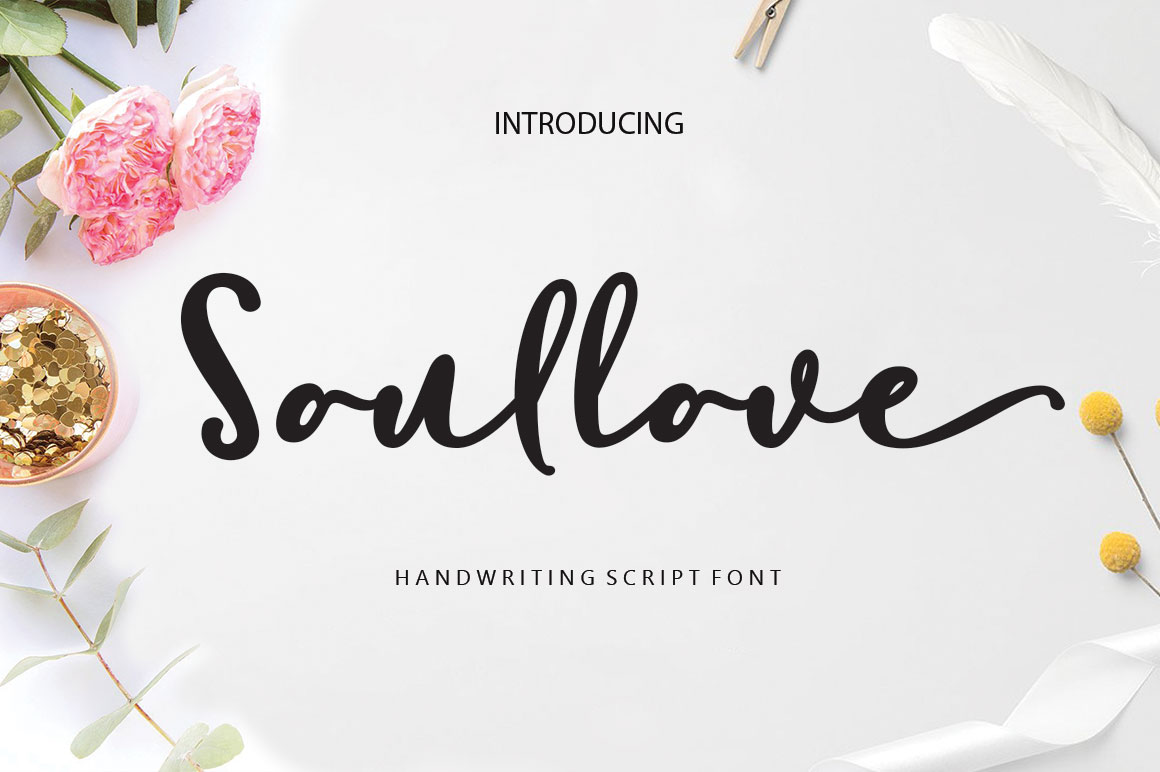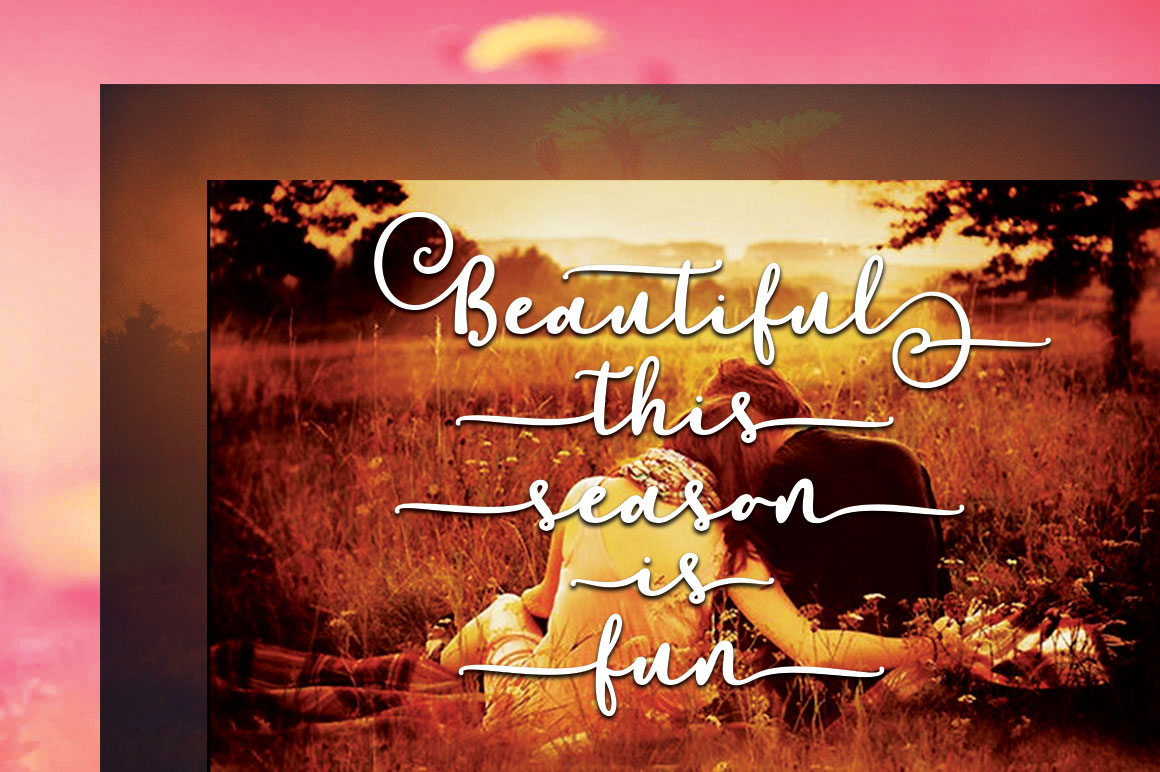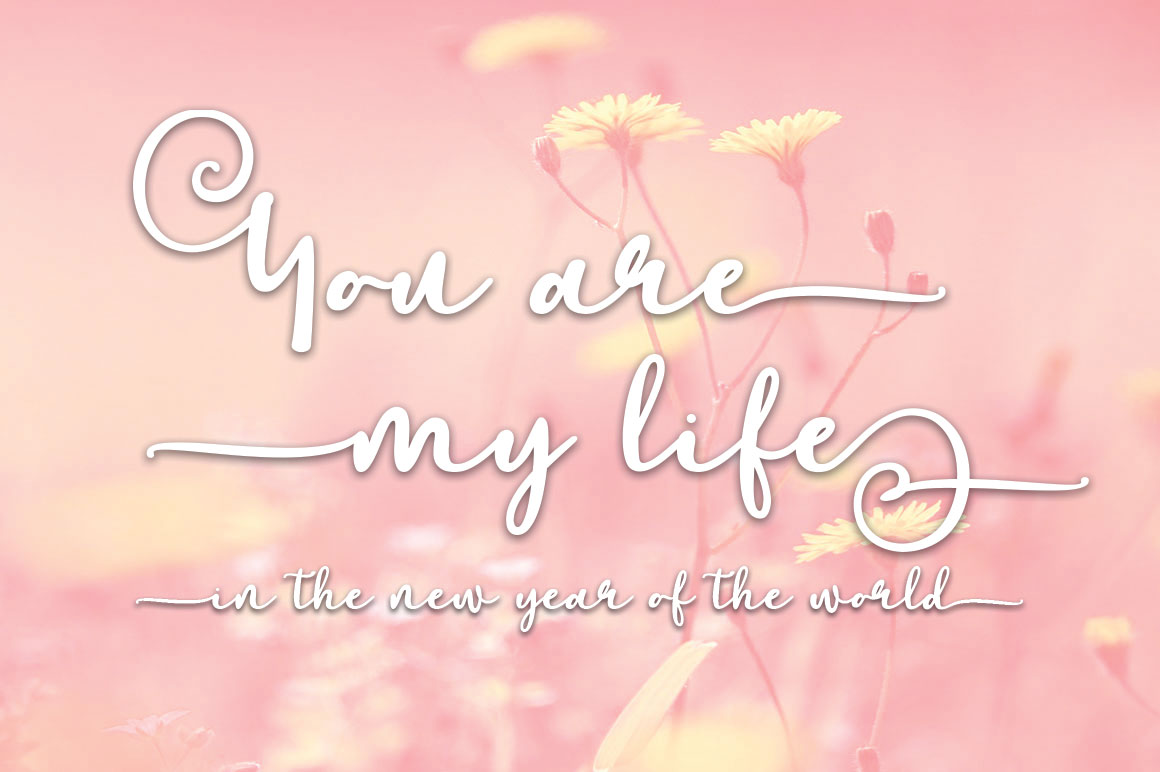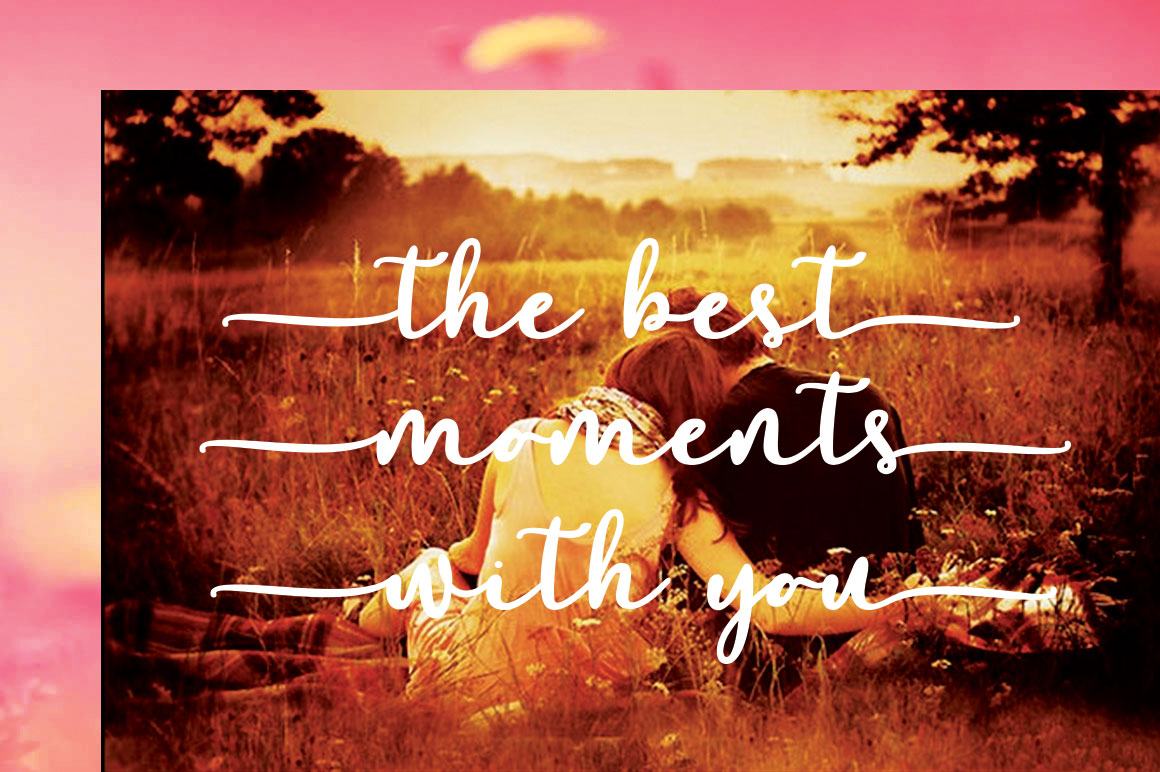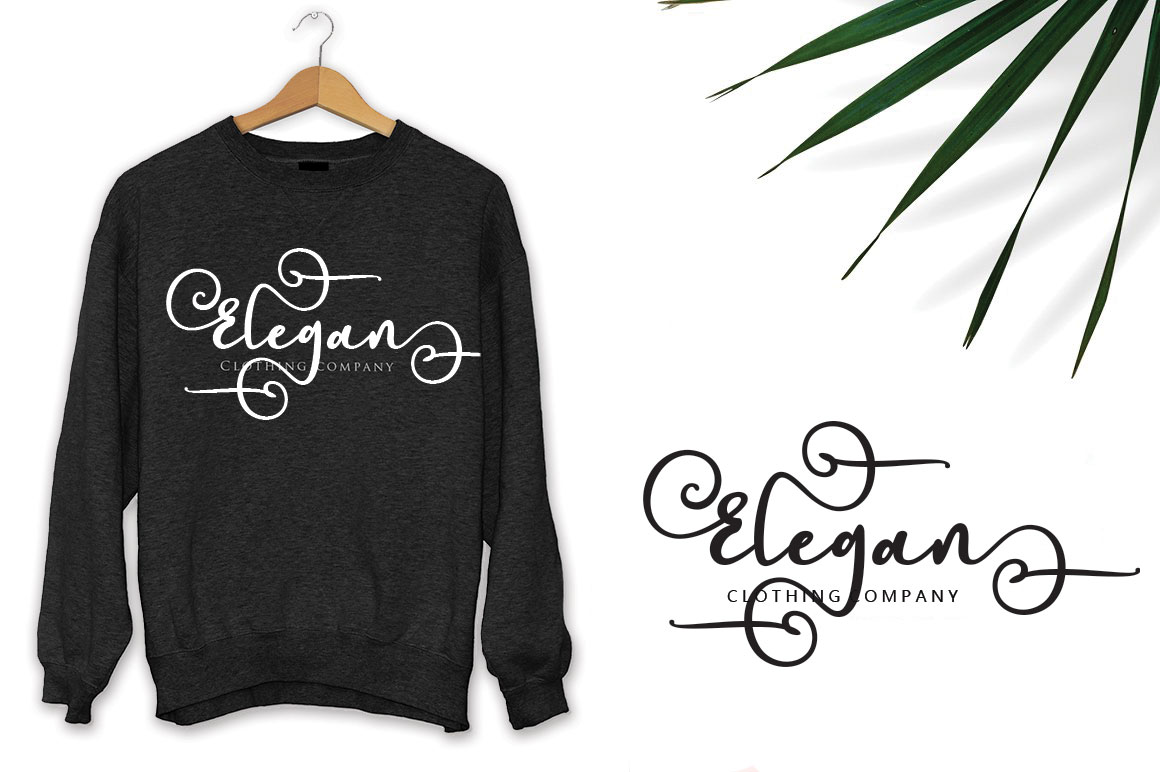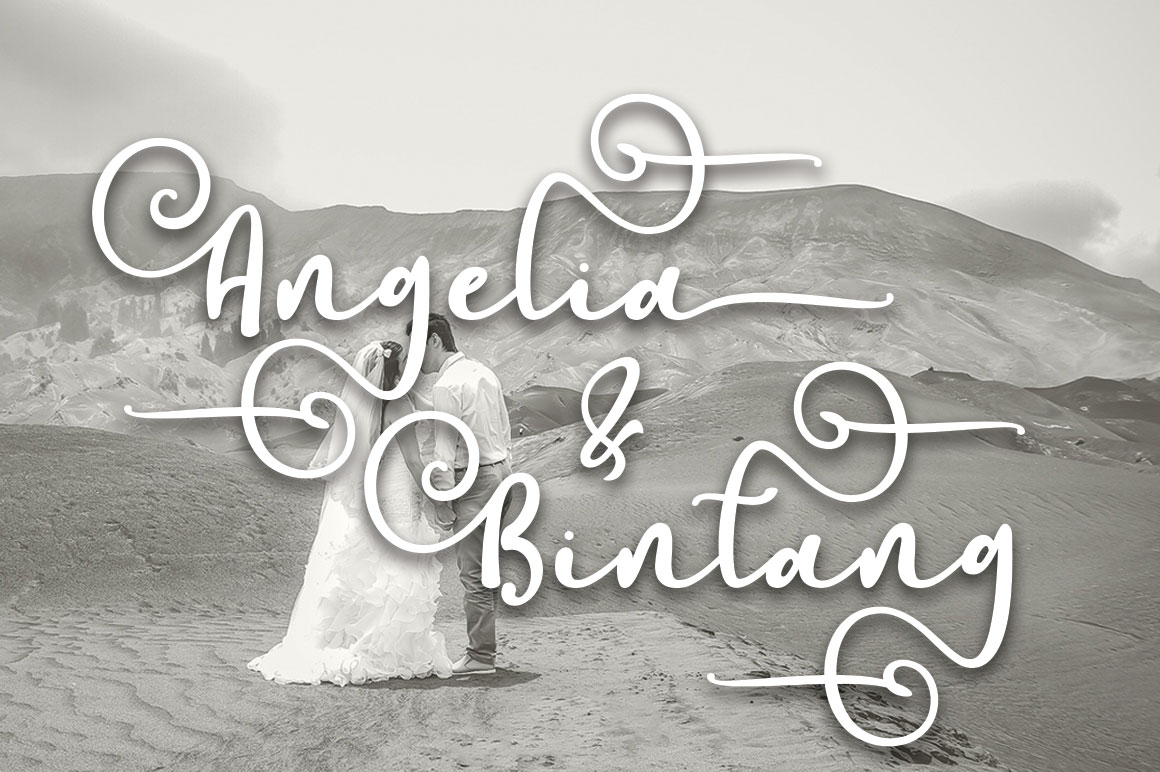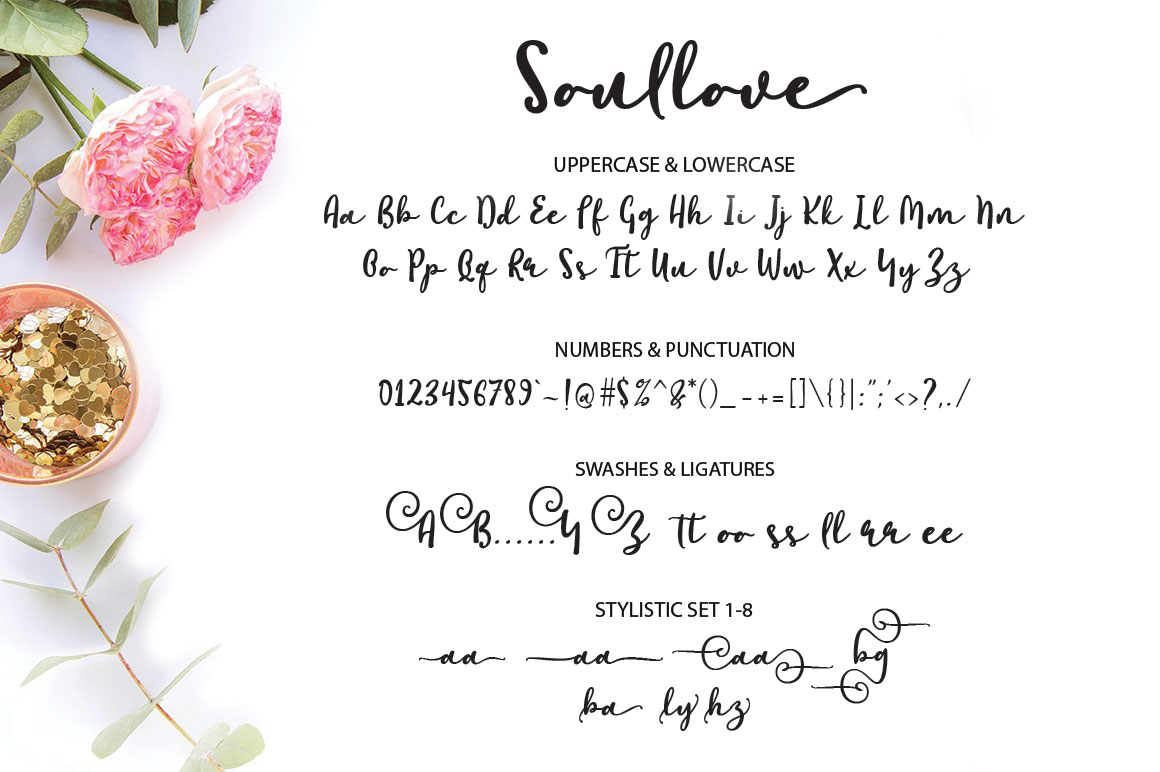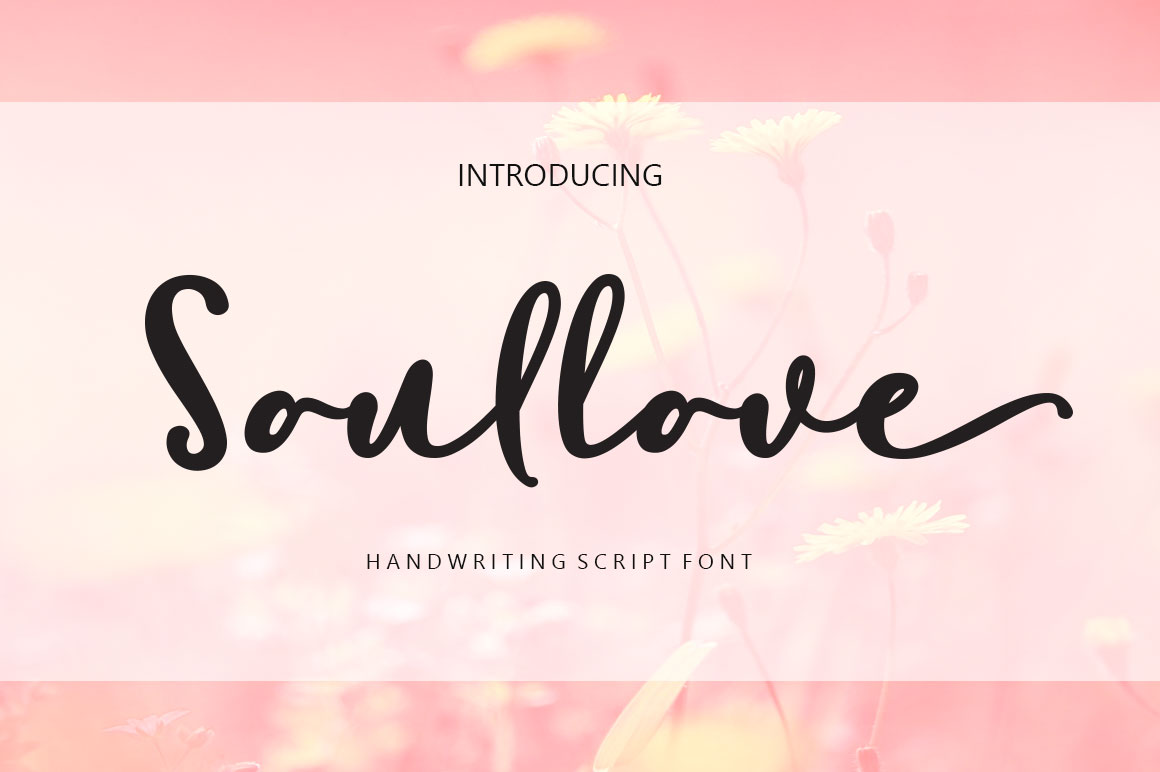
Soullove Font
About Soullove Font
Soullove is a beautiful and extremely elegant font that looks great in romantic invitationals, fashion spreads, or in editorials. This font reads well and looks current so you don’t have to worry about your designs looking stuffy or antiquated.